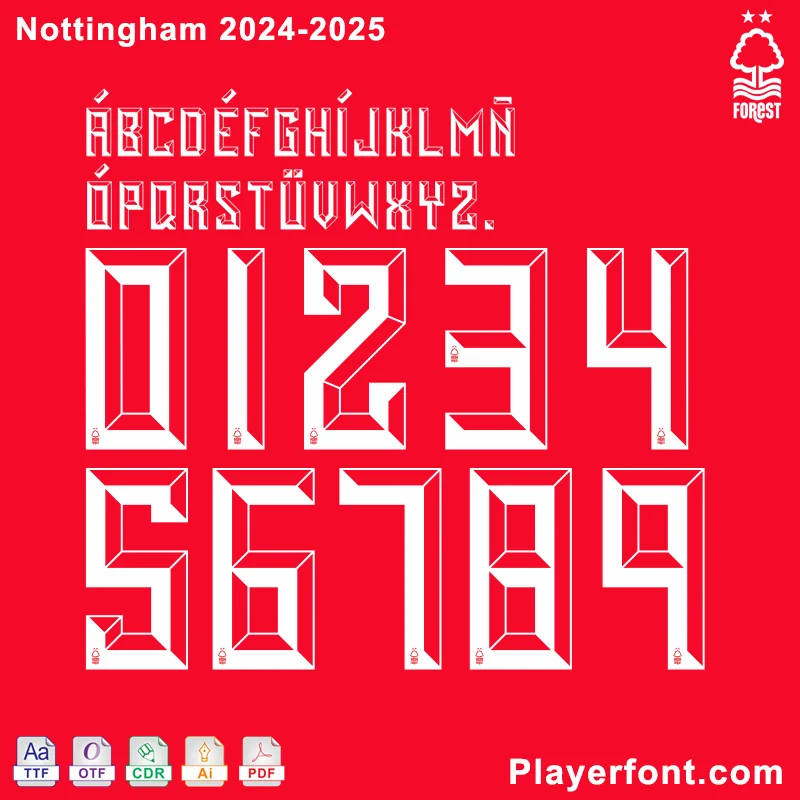
The standout feature of the Nottingham Forest 2024/25 adidas home shirt is its striking, textured pattern. The design incorporates two overlapping stars, a subtle yet powerful nod to Nottingham Forest’s illustrious history. At the same time, with the more modern Nottingham Forest 2024-2025 Font, the Nottingham Forest 2024-2025 Jersey perfectly combines tradition and innovation.
The Nottingham Forest 2024-25 Font is based on the official name set, with the Nottingham logo at the bottom of the number. Can be used custom Nottingham Forest 24-25 jersey name set.
Nottingham Forest 2024-2025 Font kit Details and Use